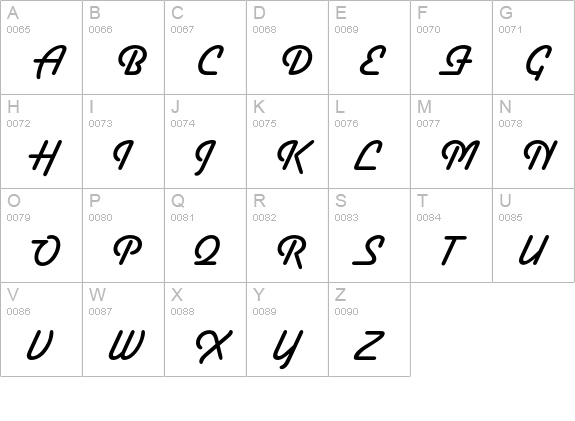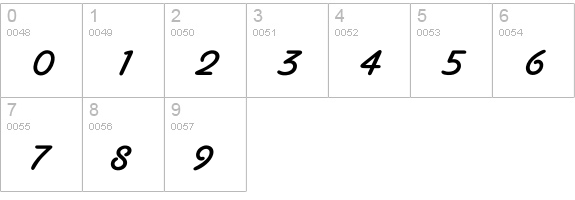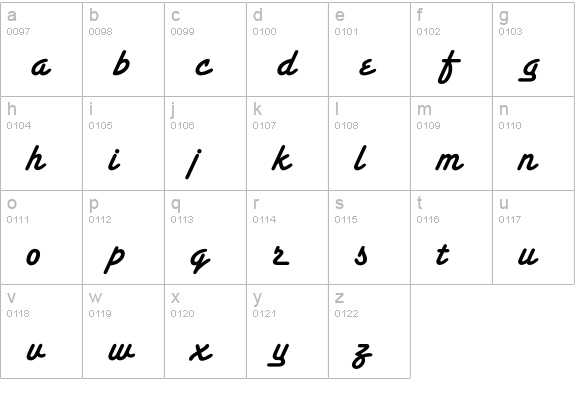
Sierra Font Details
Sierra font is a stunning typeface that exudes elegance and sophistication. Its graceful curves and delicate strokes make it the perfect choice for any design project that requires a touch of class. The clean and crisp lines of Sierra font lend themselves beautifully to both print and digital mediums, ensuring that your message will always be conveyed with clarity and style. But what sets Sierra font apart from other fonts is that it is not only visually appealing, but also freely available to download. That's right, you can enjoy the beauty and versatility of Sierra font without any cost. Simply head over to FontsMarket.com and easily access this amazing font at no charge. Whether you're a professional designer or a creative enthusiast, Sierra font will undoubtedly become an invaluable asset in your typography arsenal. Its versatility and timeless appeal make it suitable for a wide range of projects, from logo designs and branding materials to invitations and website layouts. So why wait? Discover the beauty of Sierra font today and elevate your designs to new heights. Download it for free at FontsMarket.com and unlock the endless possibilities that this remarkable typeface has to offer.